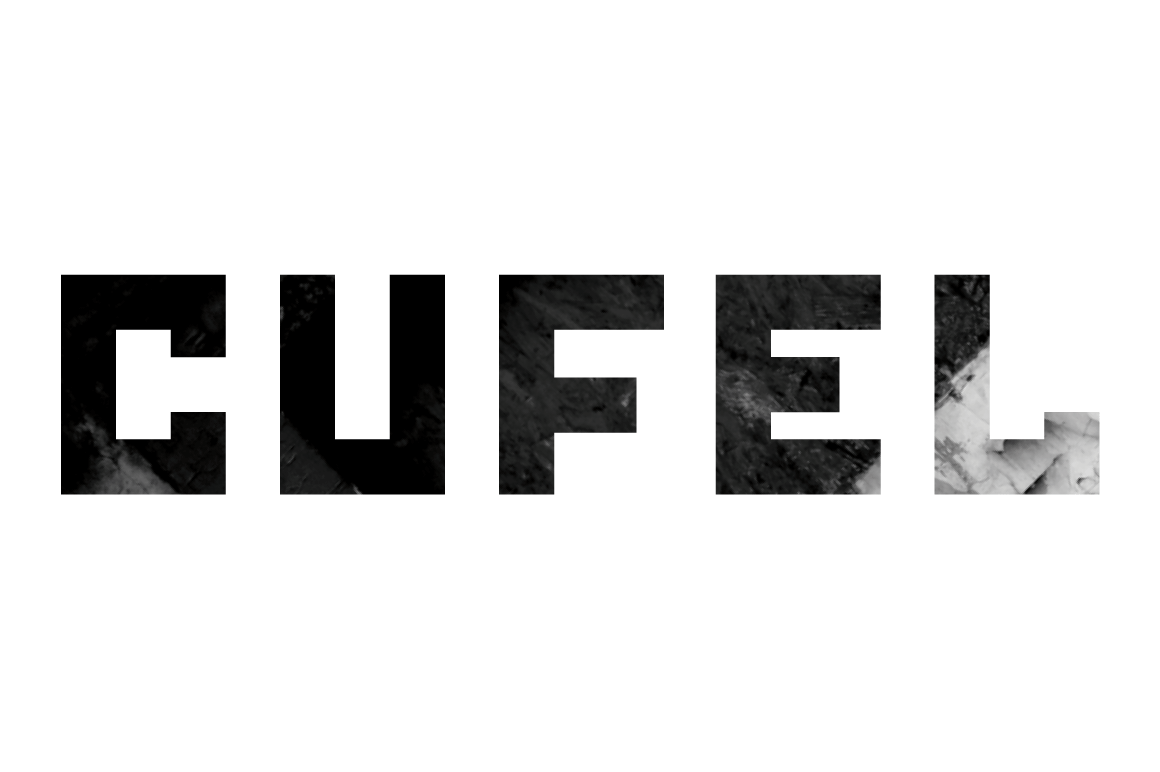
CUFEL Font
CUFEL is a futuristic all-caps display typeface with geometric forms.
A font created initially for a series of futuristic posters.
Best for bold, expressive headlines, posters, billboards and of course brand identities. Fits well with photos.